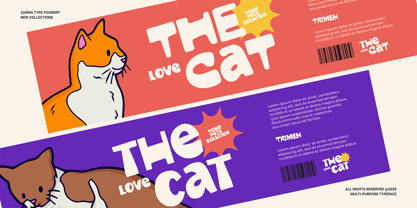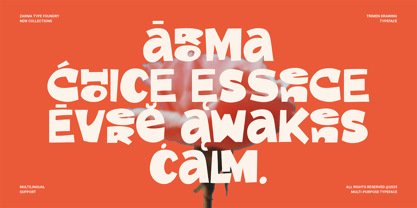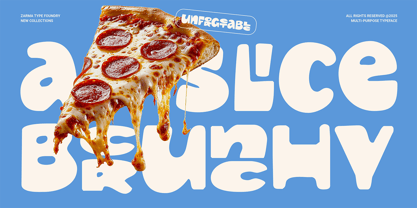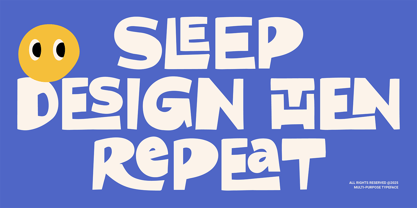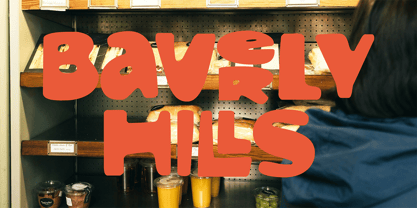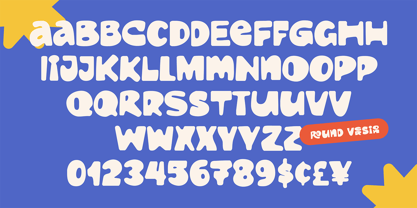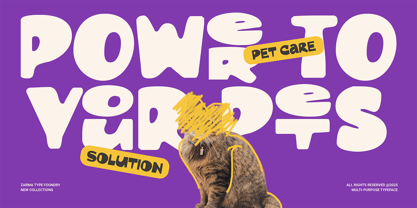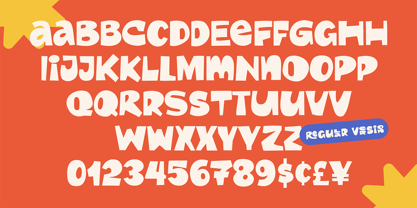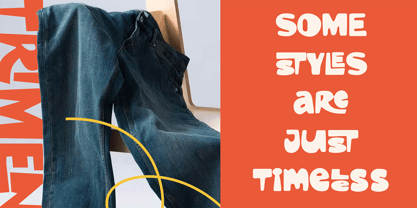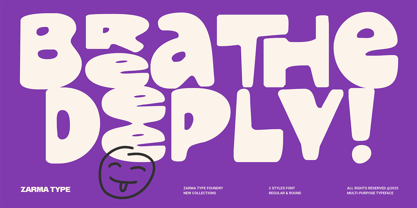
Trimen Drawing
by Azzam Ridhamalik
The Trimen Drawing Font Family was designed by Azzam Ridhamalik and published by Azzam Ridhamalik. Trimen Drawing contains 2 styles and family package options. More about this family
Trimen Drawing brings a burst of handdrawn boldness to your brand visuals, blending thick strokes with playful distortions for maximum impact. From food brands to funky streetwear, this font is all about being expressive, authentic, and impossible to ignore. It’s the kind of typeface that adds raw creativity to packaging, posters, and campaigns without feeling overproduced.
The organic imperfections and urban energy of Trimen Drawing make it a perfect companion for creatives who love pushing boundaries. Its multilingual support, alternative glyphs, and eye-catching personality give you all the tools you need to craft brand visuals that are fearless and full of character.